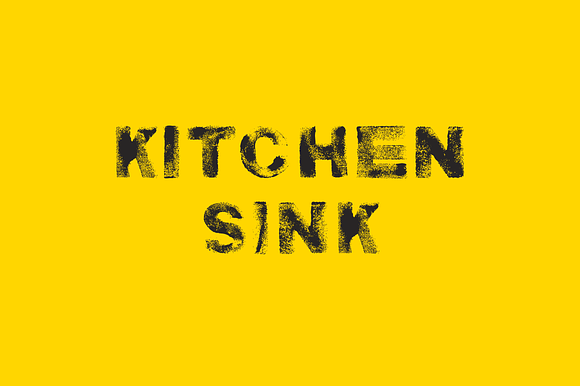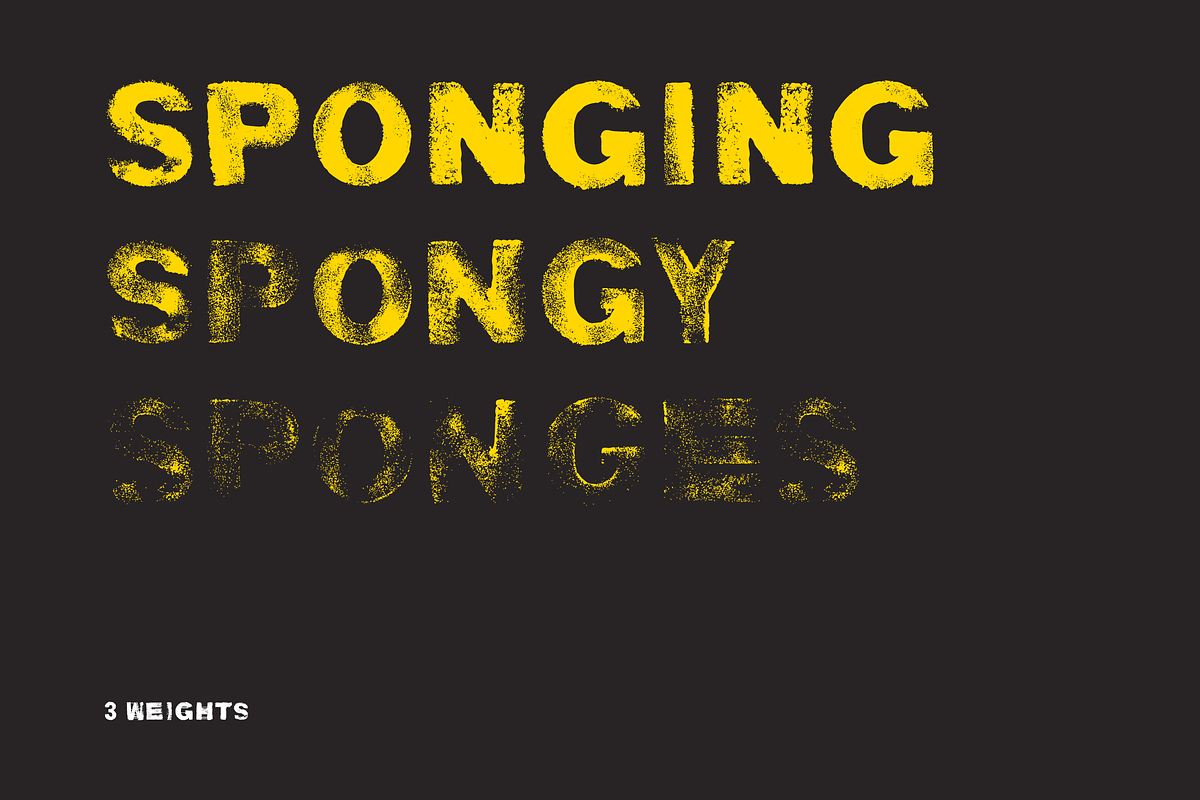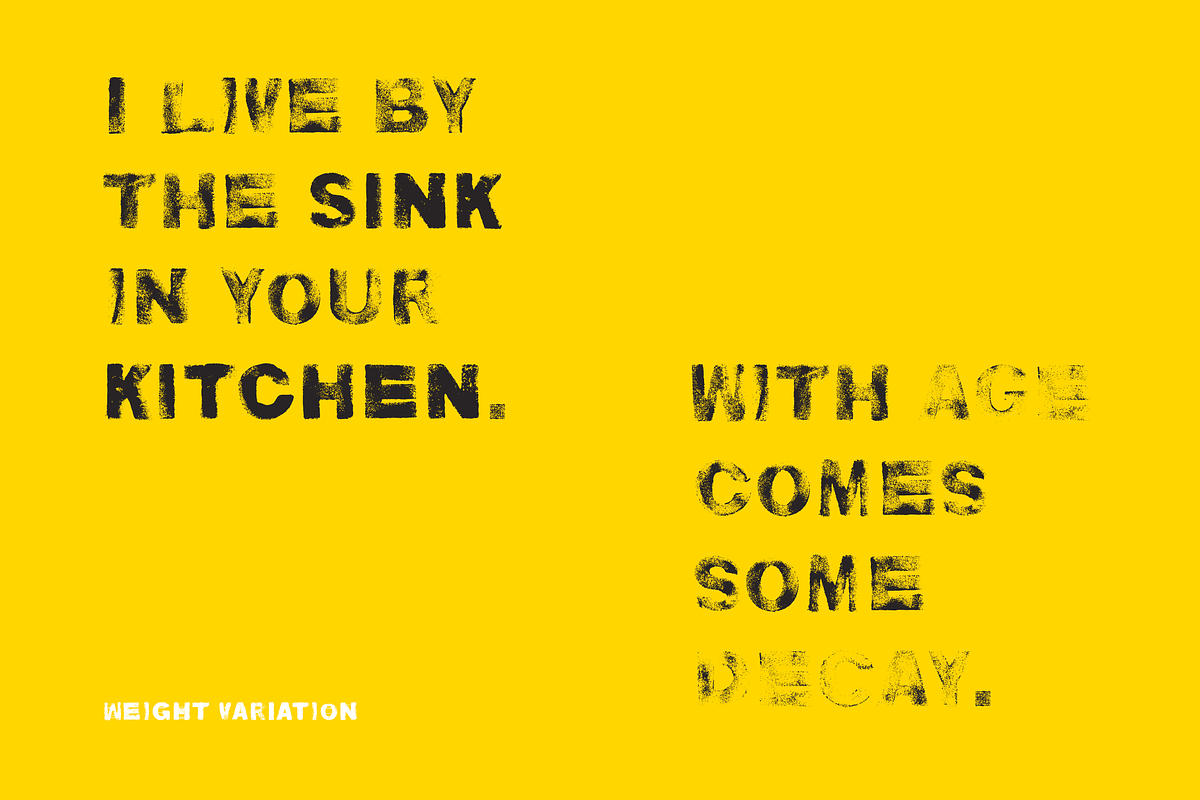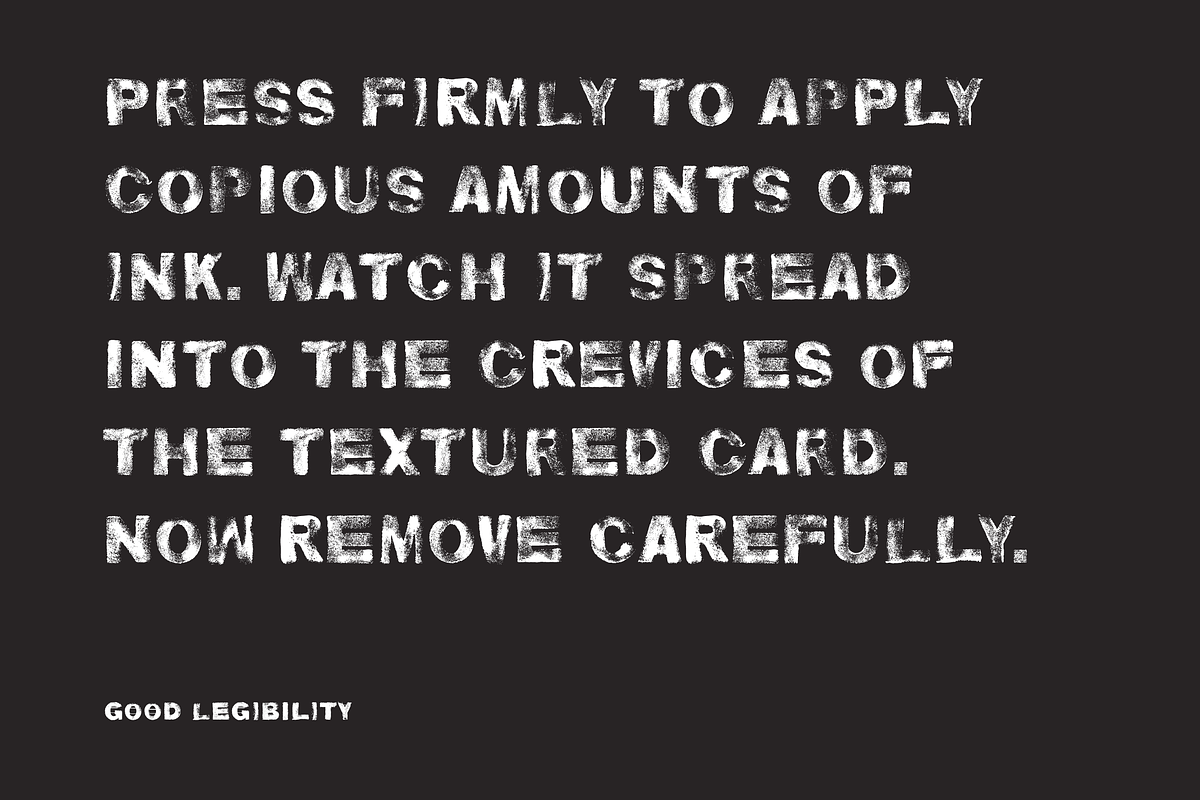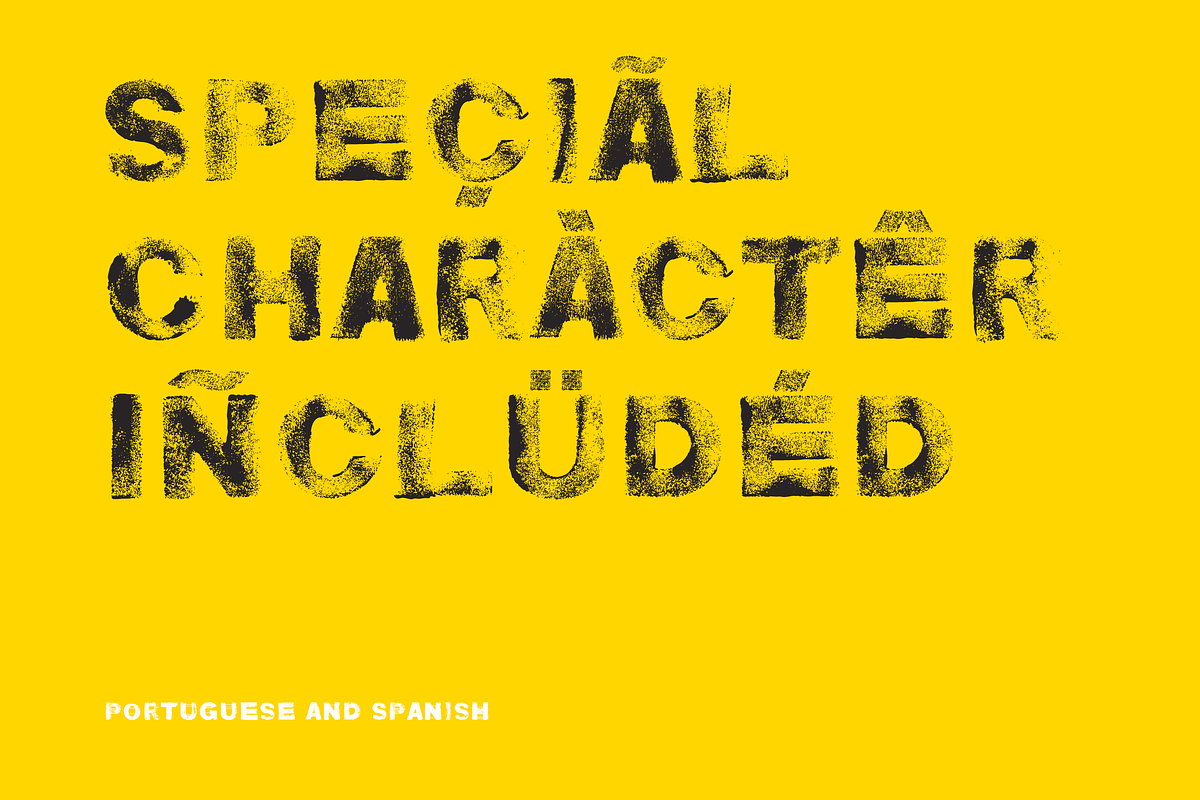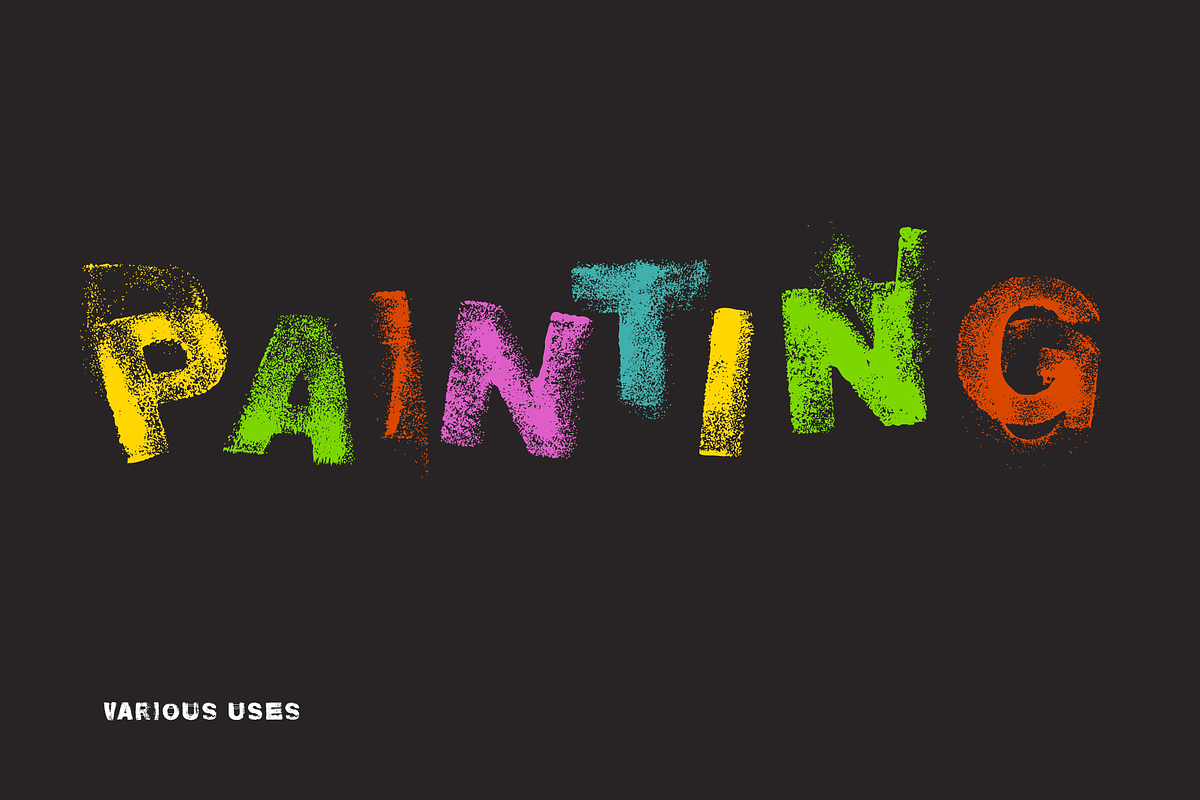
Kitchen Sink Typeface
This typeface is named after the favourite haunt of the sponges which were used to create it - the kitchen sink. A shaped sponge was covered in acrylic paint, dabbed onto paper plenty of times, and then scanned in order to create each letter. For personal use it can be downloaded for free at
The typeface has been designed to work in three main languages: English, Spanish, and Portuguese, with accented and specialised glyphs for each of these languages included. Some characters may be missing, try before you buy at